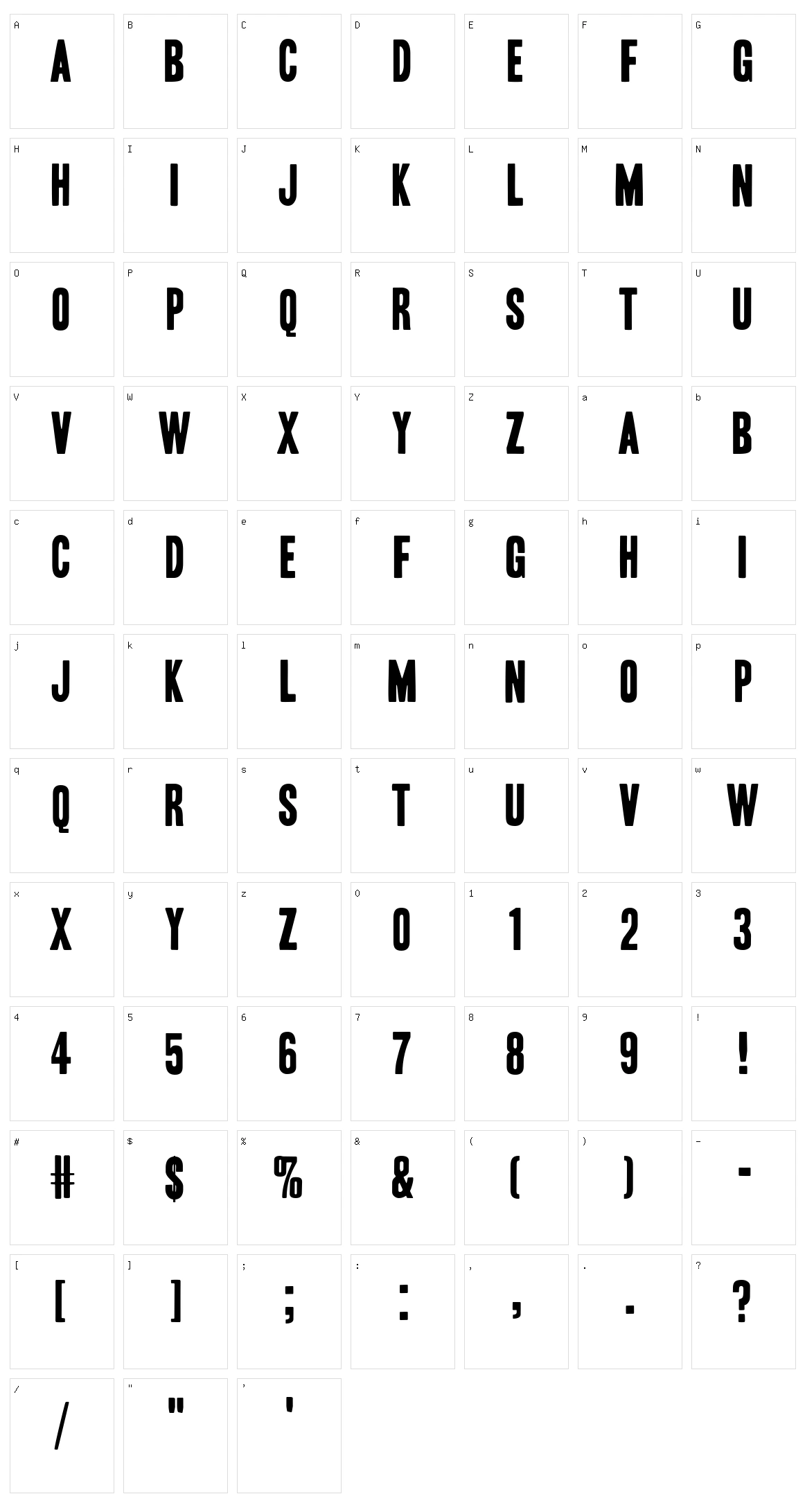
The free font Headline is carefully designed by HPLHS Prop Fonts, showcasing a thoughtful balance of creativity and usability and falls under the Sans serif font style. When you download the ZIP file, it contains only 30.44 KB of font files, making it lightweight and quick to download. Please review the license details below to understand permitted usage and distribution rights. If license information is not available, we recommend using this font for personal projects only or contacting the author directly for commercial usage permissions.